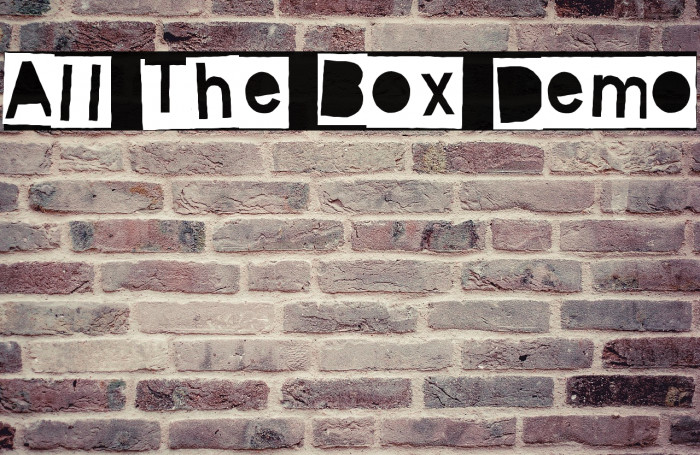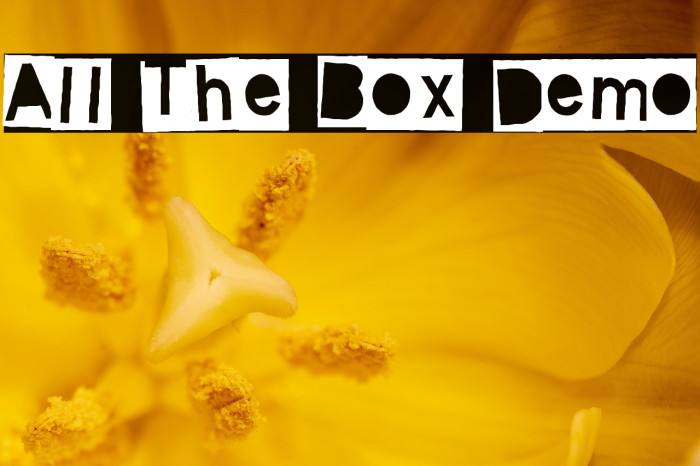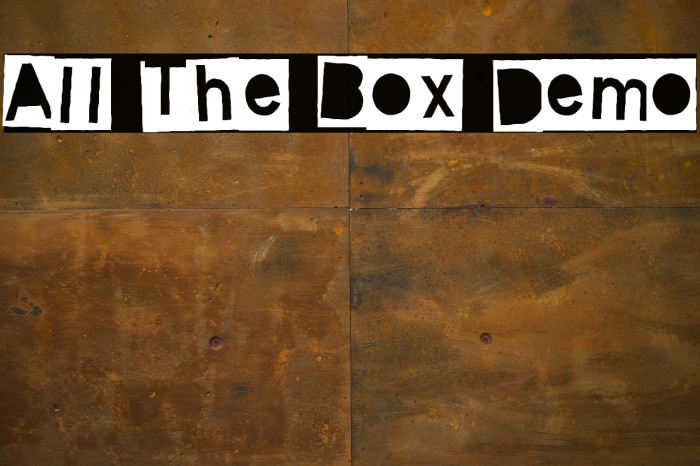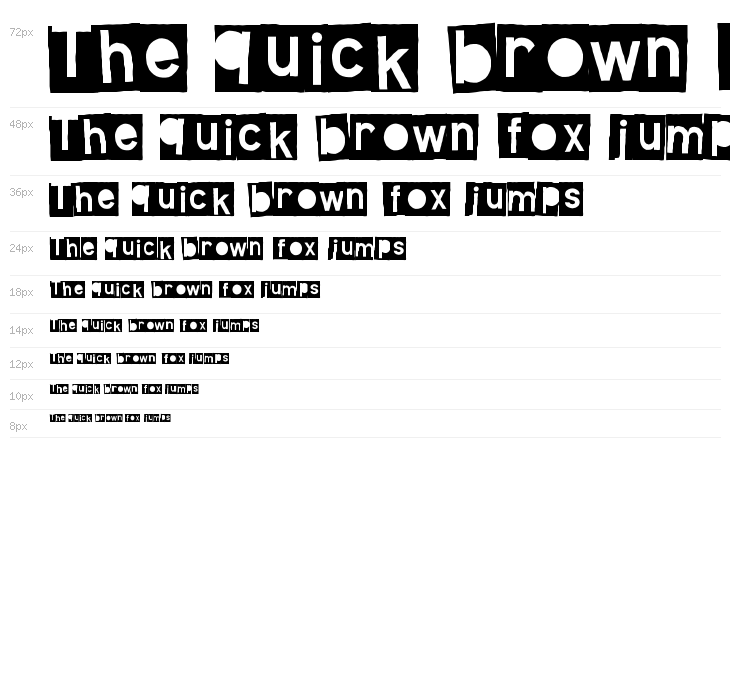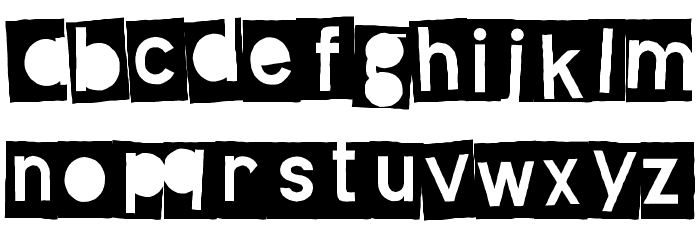
All The Box Demo Font
All The Box Demo Description
This font features a bold and playful design with each character enclosed in a box-like shape, creating a unique and eye-catching appearance. The uppercase and lowercase letters maintain a consistent style, with irregular edges and a hand-cut feel that adds a touch of whimsy. The characters are bold and prominent, making them suitable for attention-grabbing designs. The special characters follow the same boxed style, ensuring uniformity across the font. This font's distinct style makes it ideal for creative projects that require a fun and unconventional look.
| Overall Style | Playful, Creative |
| Proposed Projects | Ideal for posters, children's books, playful branding, and creative design projects. |